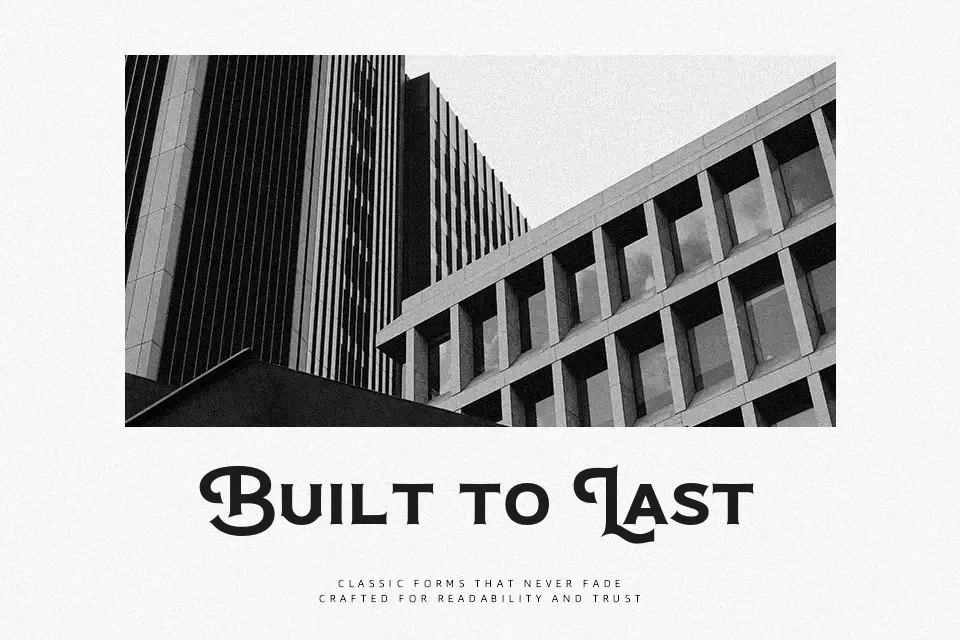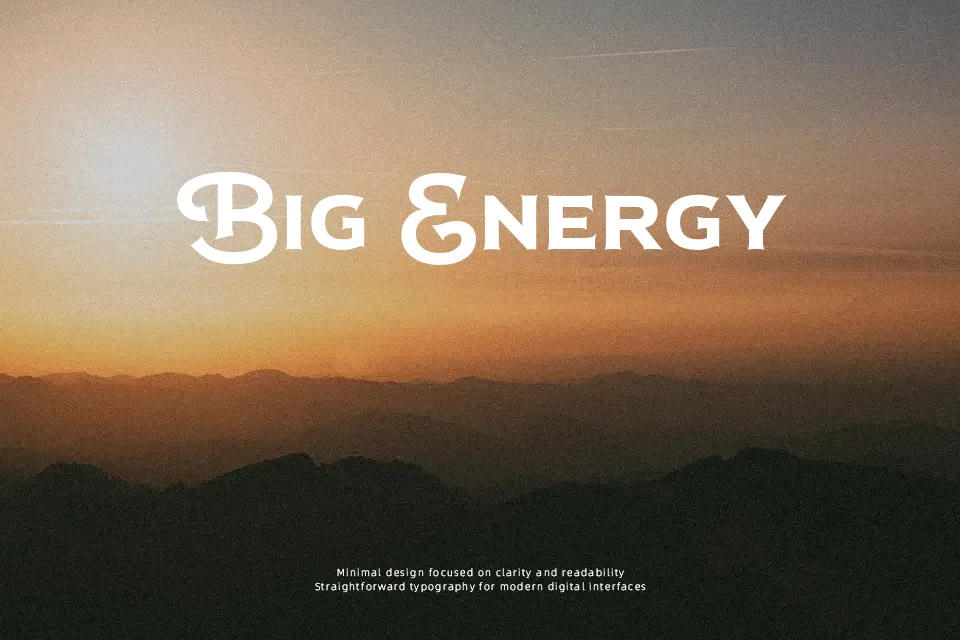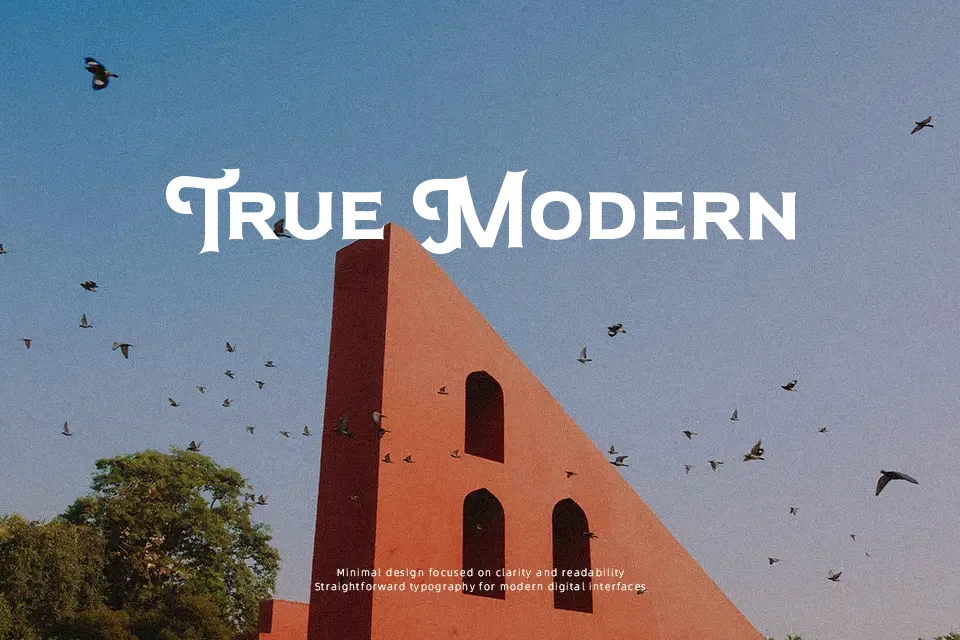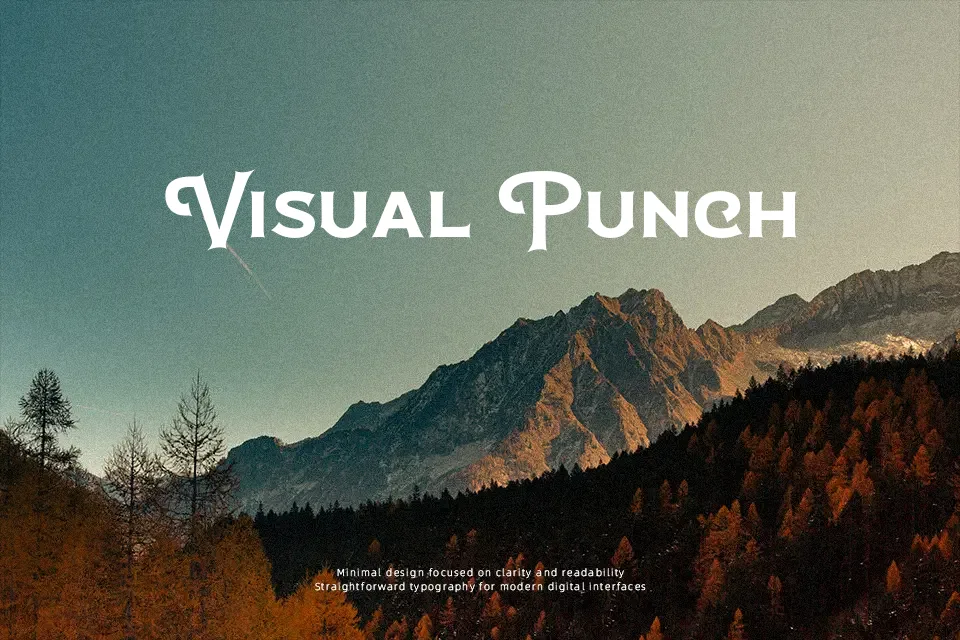
Spritz And Delicious Font
Spritz And Delicious Font uses decorative serif letterforms with curving strokes, varied proportions, and a distinctly display-oriented rhythm. The uppercase characters appear assertive, while the lowercase forms introduce softer movement and ornate details. Its spacing works best in short lines where each character has room to remain recognizable. The typeface is practical for invitations, labels, packaging, and large-format promotional text that needs an expressive period-style presence. Decorative features and changing stroke shapes reduce reading comfort in small sizes, so it is less convincing for lengthy copy or tightly set information.
Best For: event invitations,restaurant menu headers,vintage product packaging,poster headlines
Perfect for headline, invitation, and packaging, with a classic and decorative style.